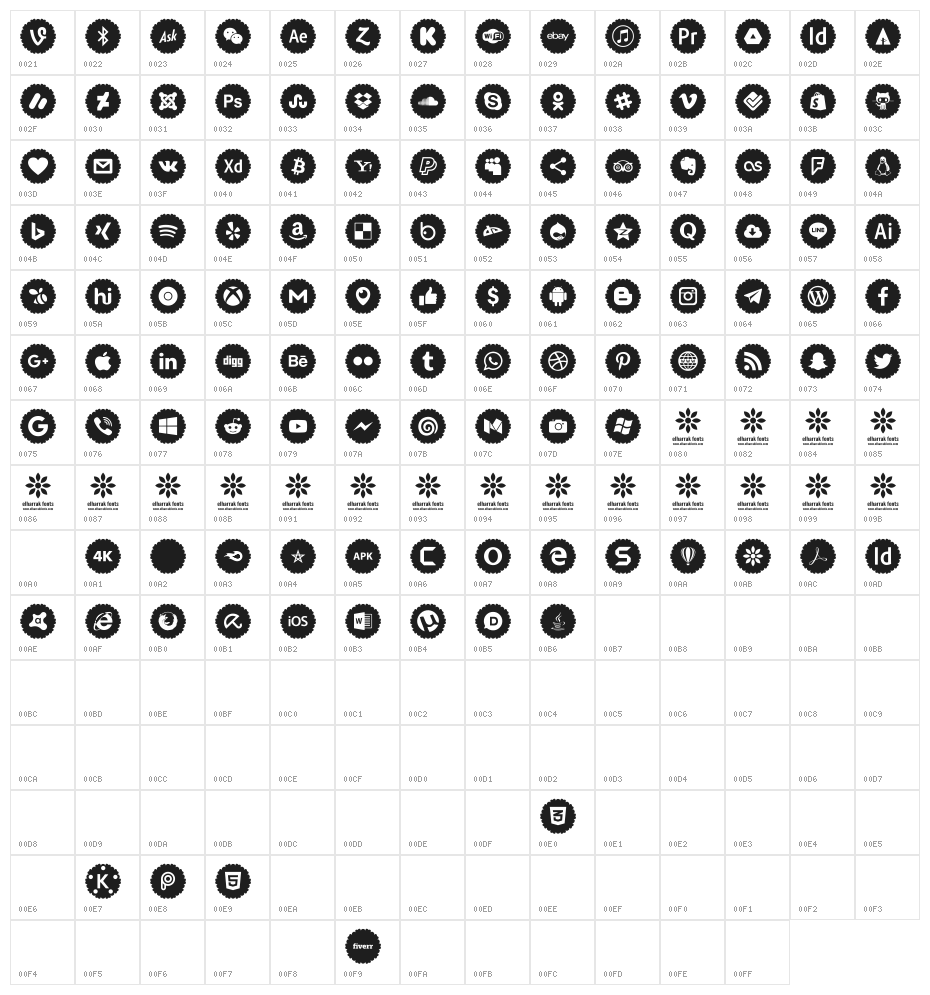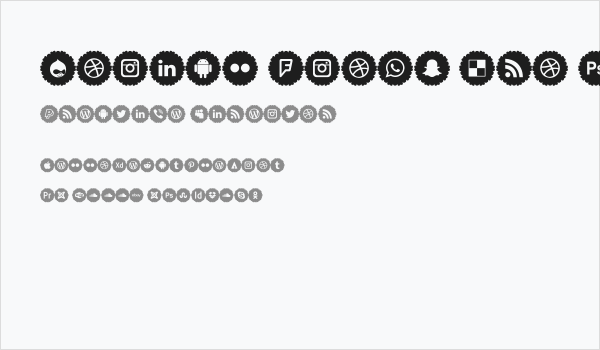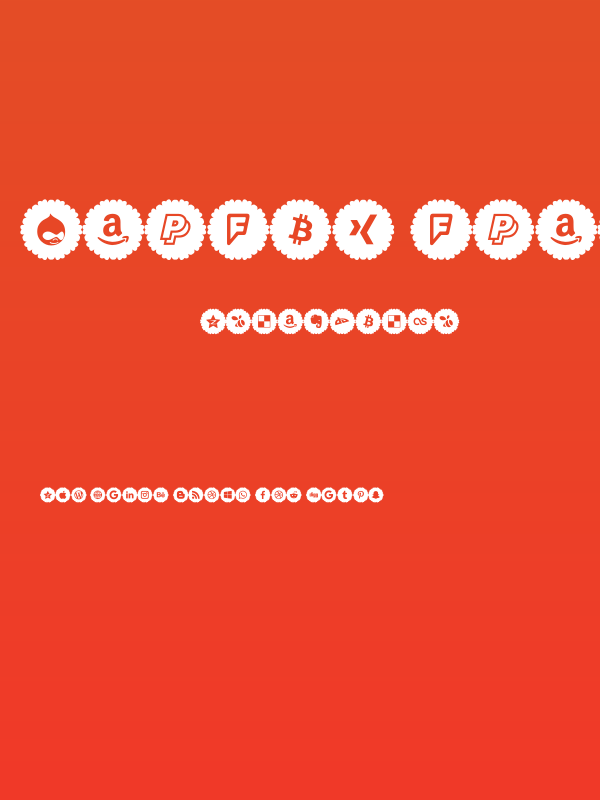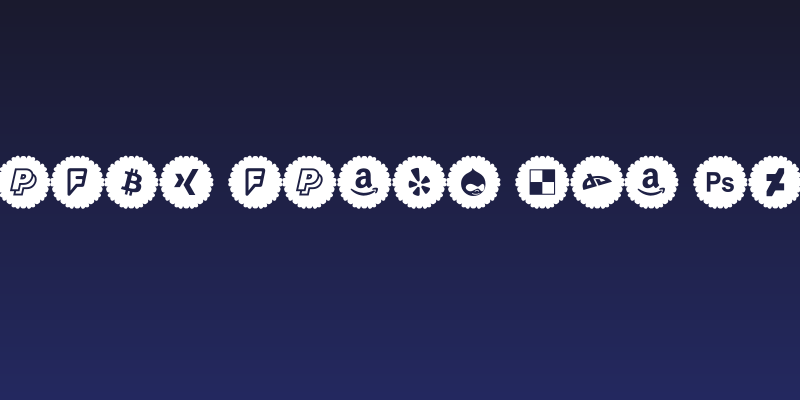
Social Icons Pro 2019 Font
Social Icons Pro 2019 Description
A collection of social media and web service icons, each enclosed in a jagged circular badge, rendered in a bold, high-contrast black-and-white style. The icons are simplified and easily recognizable, designed for clear visibility at small sizes.
| Use Case | Icons, UI elements, Social media links |
| Proposed Projects | Website footers, app interfaces, business cards, presentations, digital portfolios. |